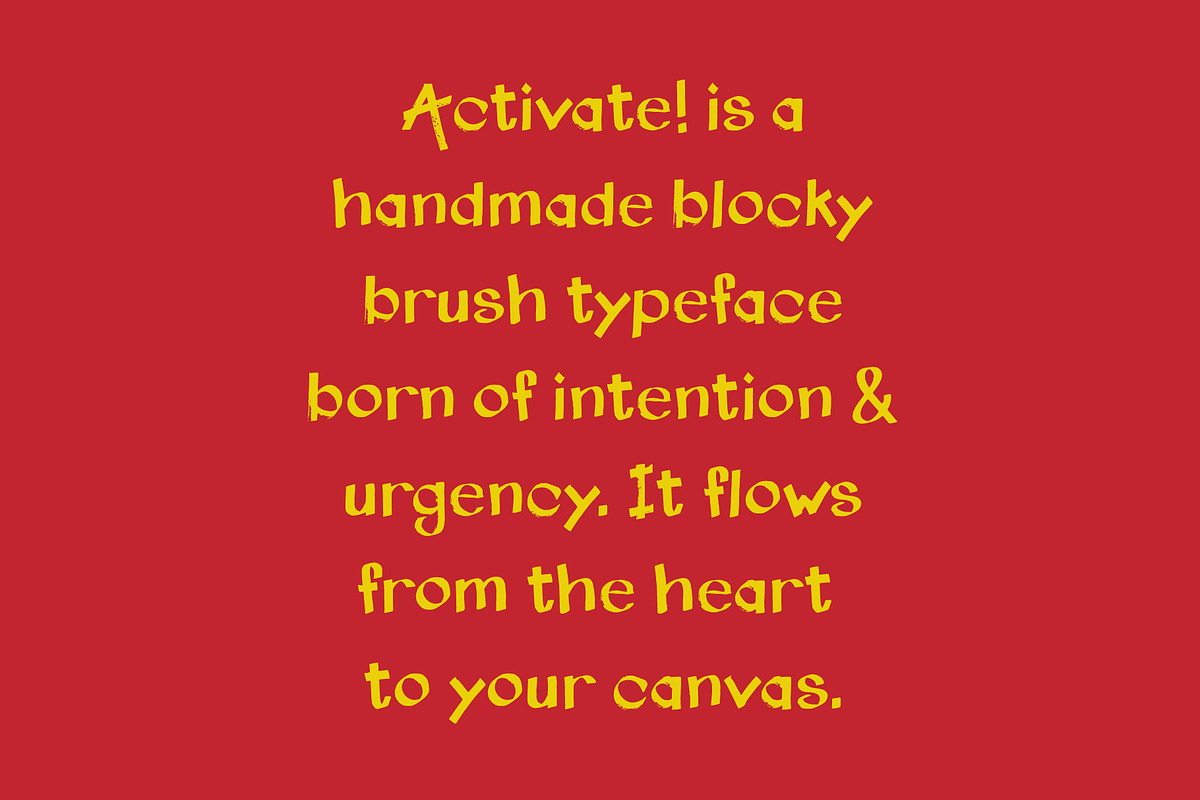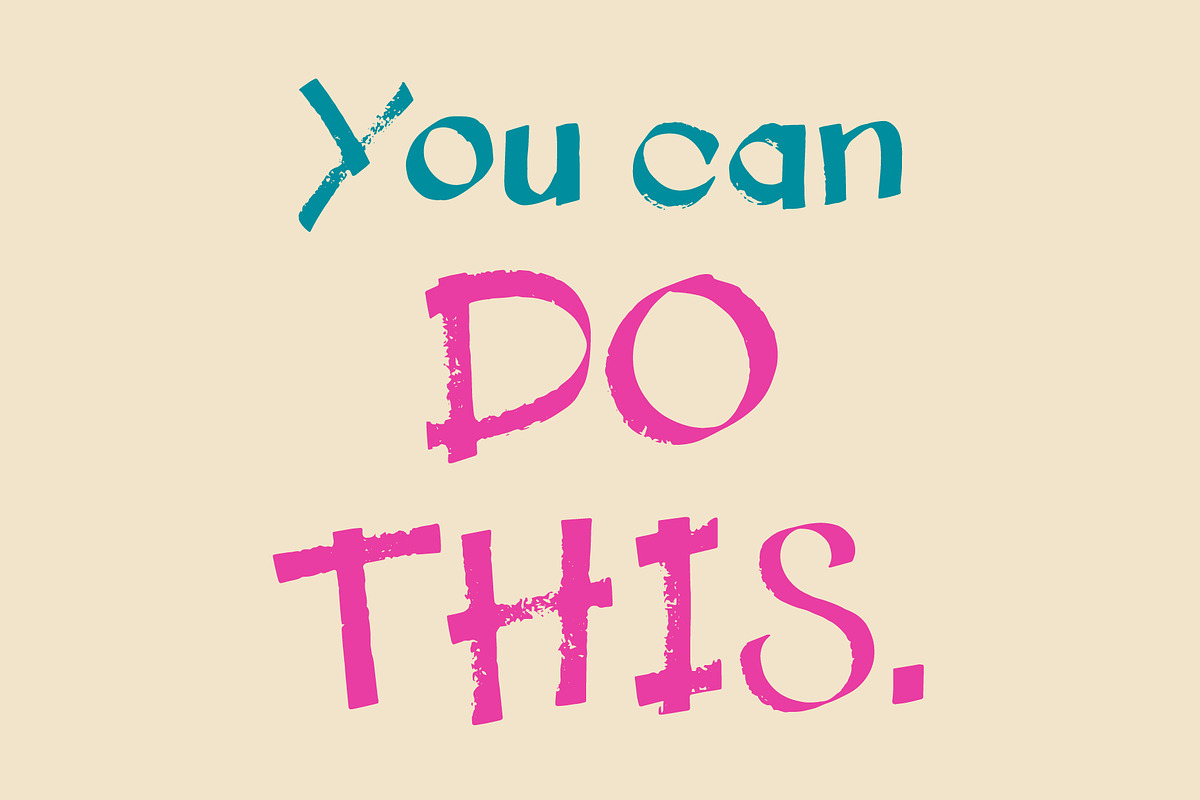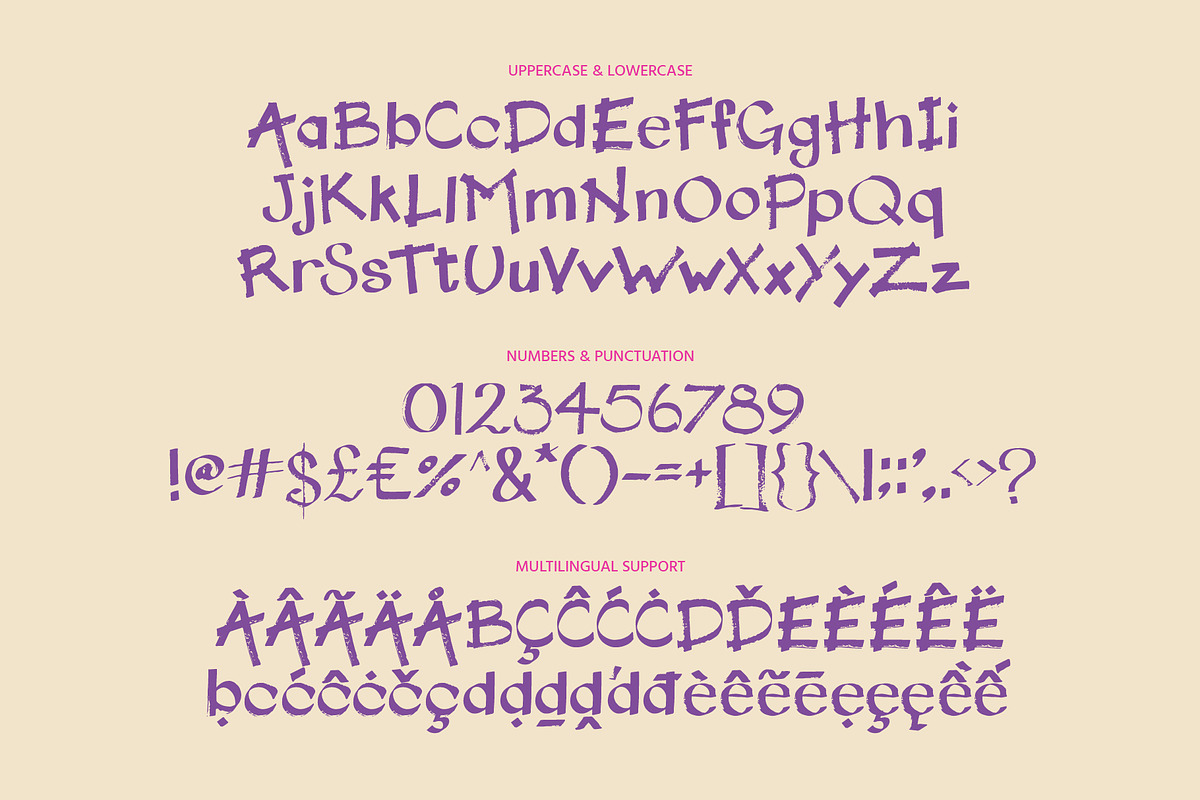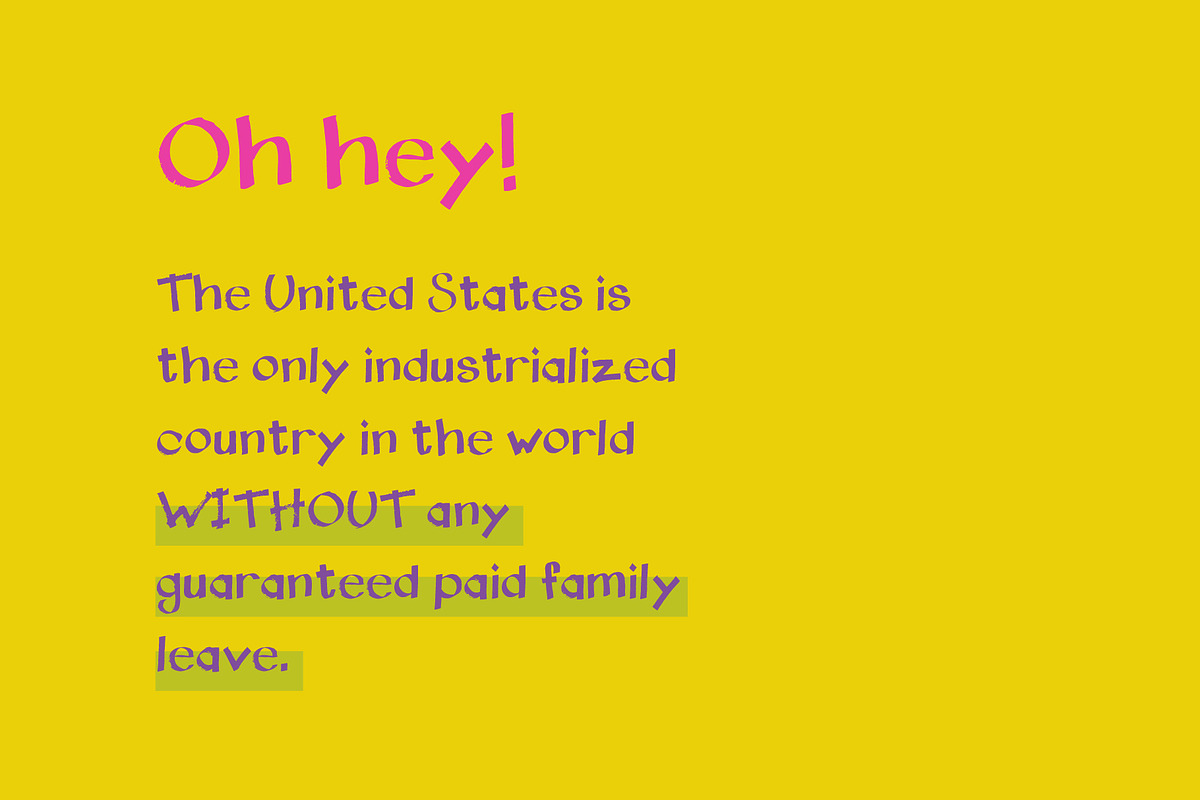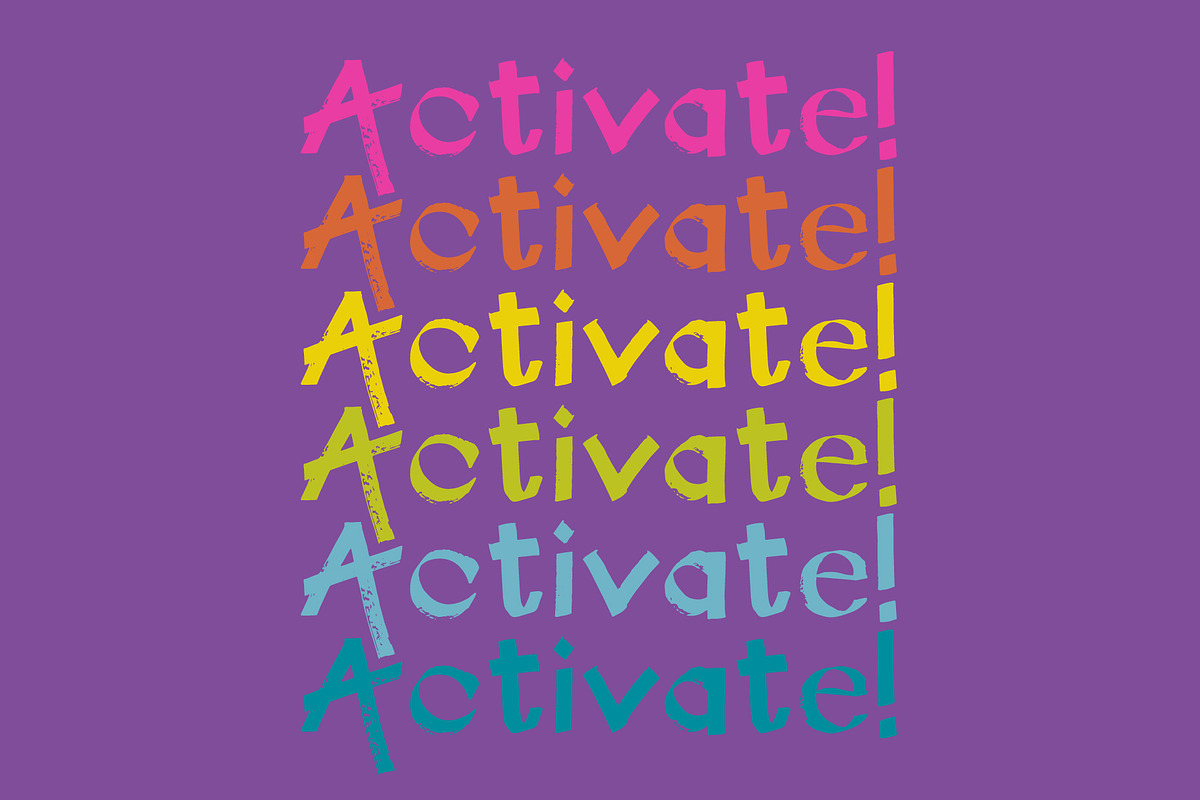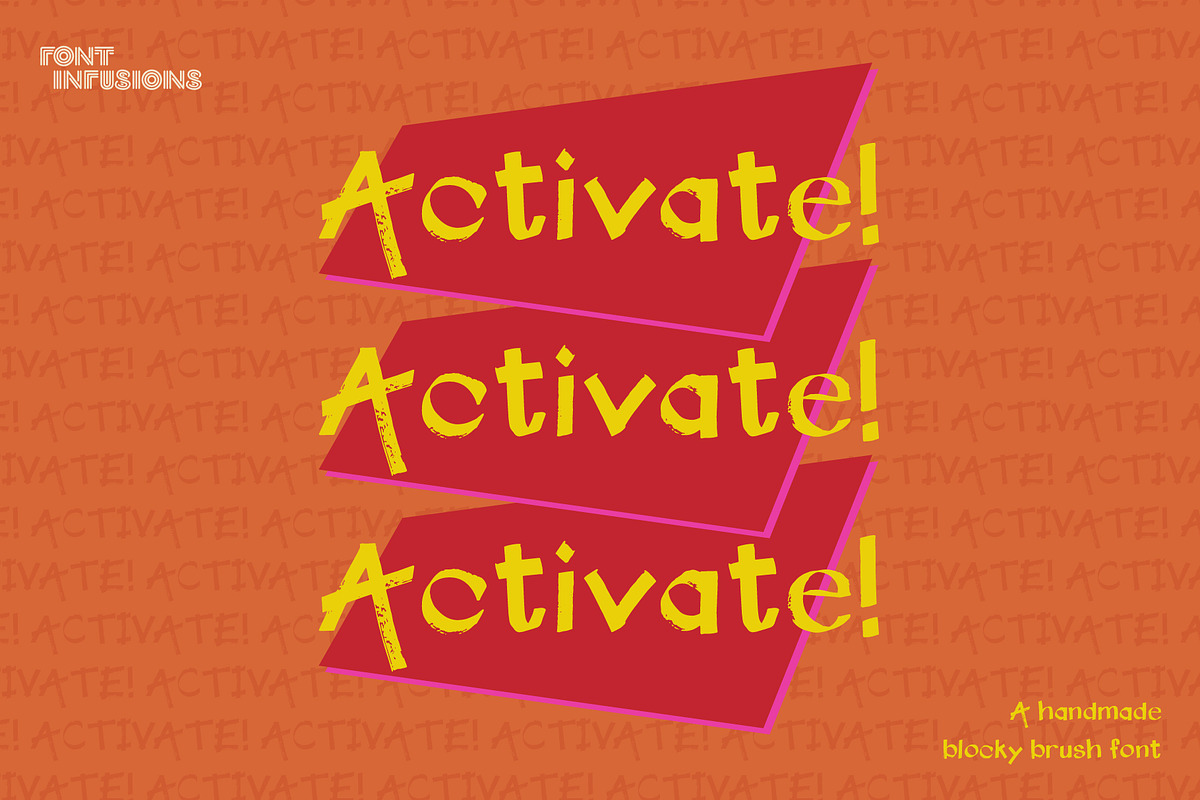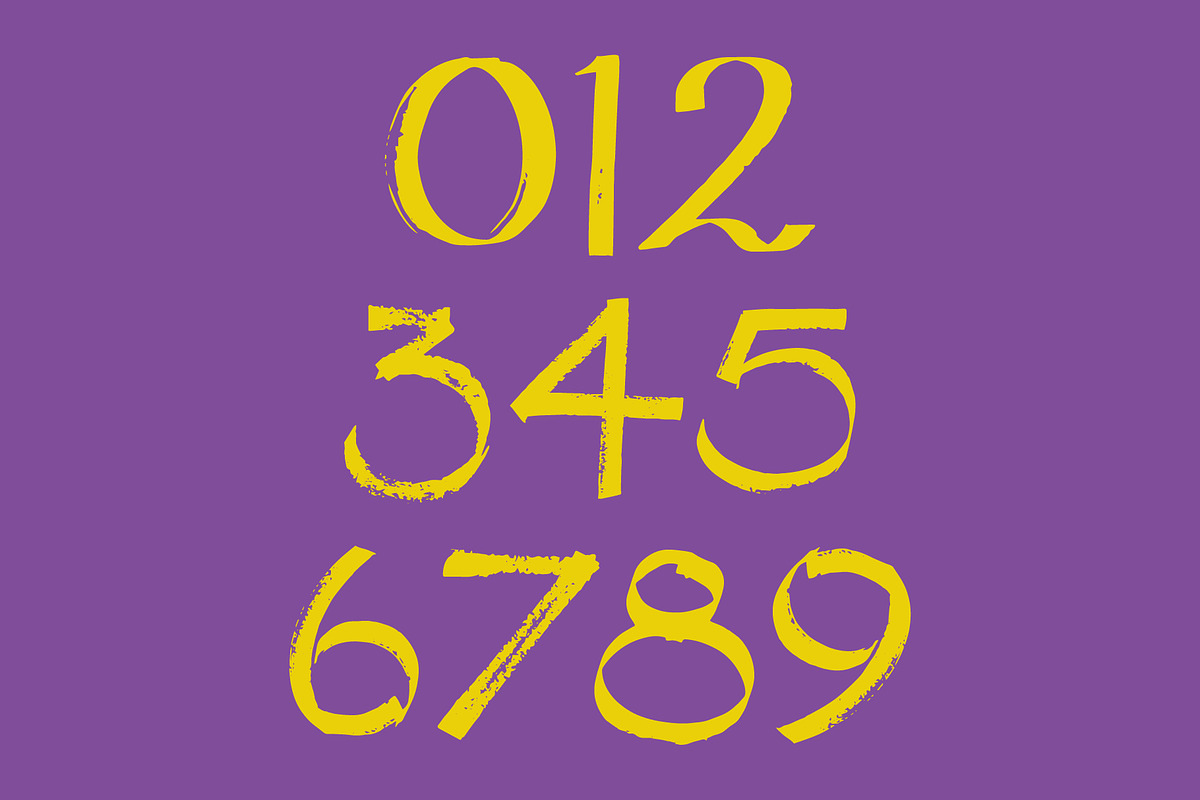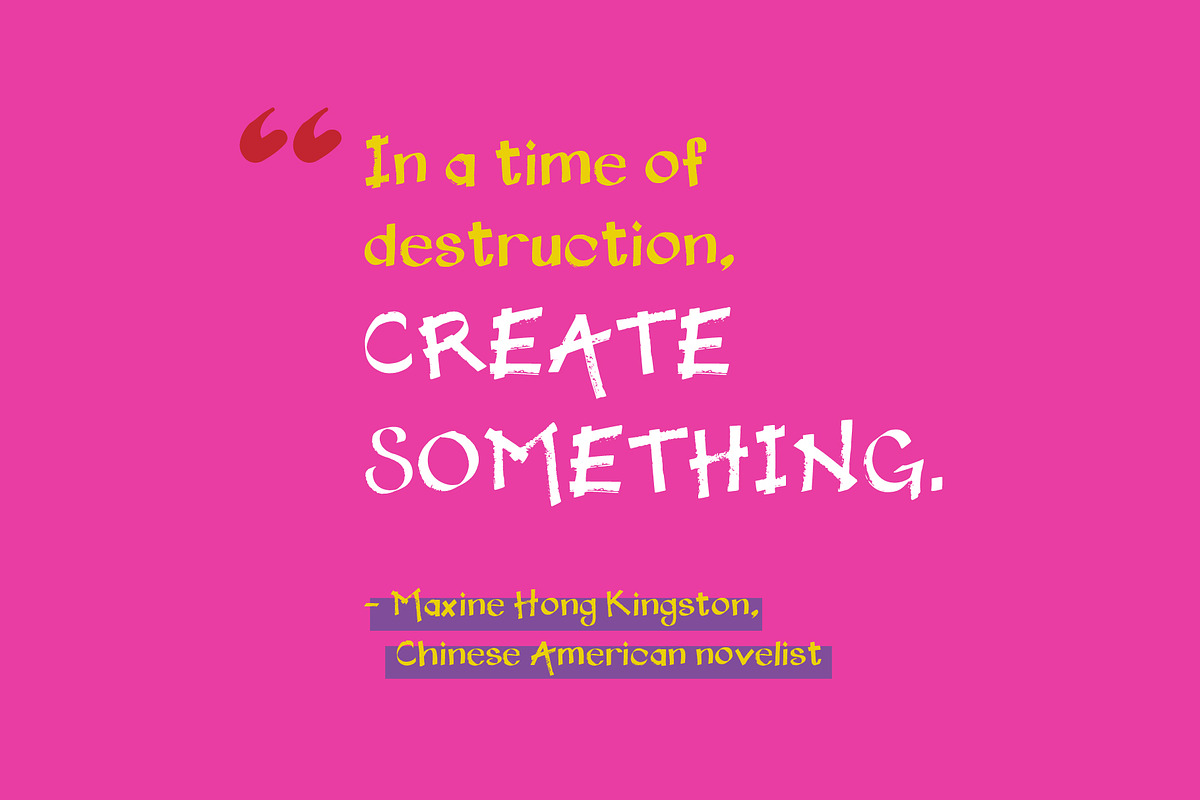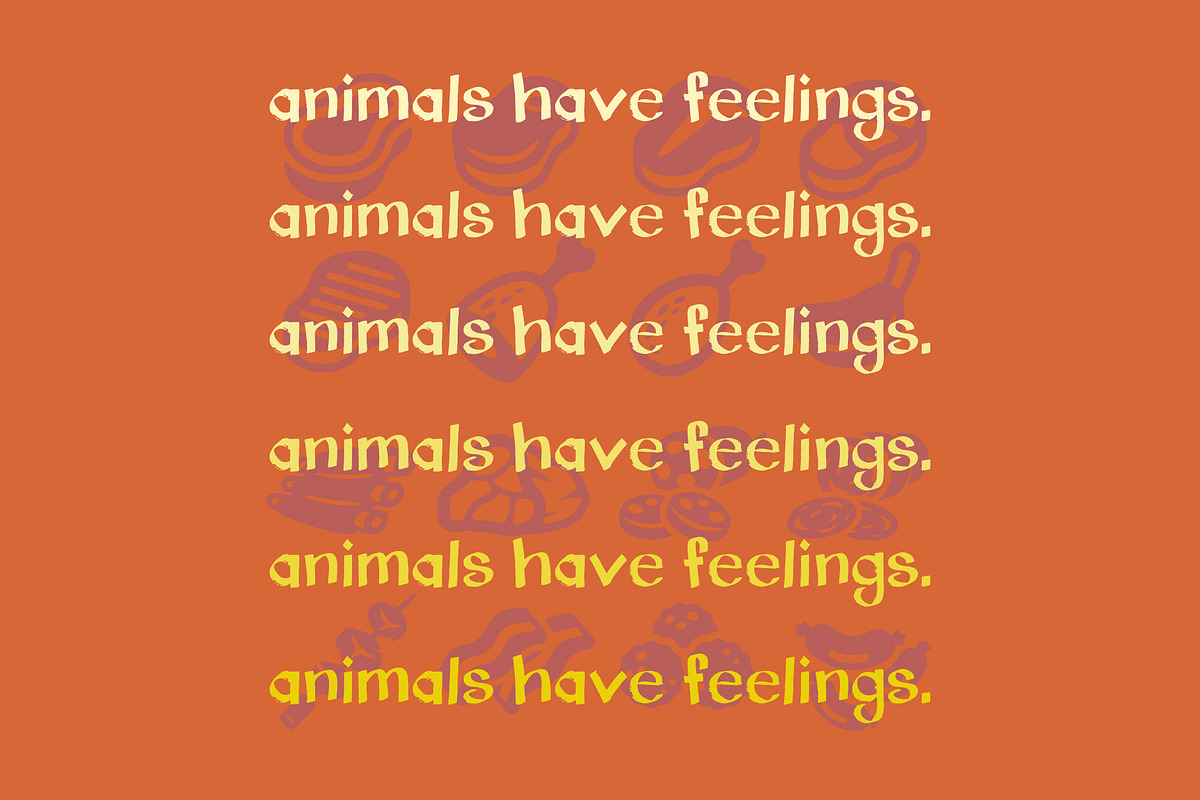
Activate! - blocky handwritten font
This typeface is perfect for adding texture with sass if you have something to say.
The coarse edges really shine when the letters fill the page, so don’t be afraid to amp up that font size. Although this is a low-contrast display font, the subtly thinner bowls can allow for longer formats up to a paragraph or two.
Type Specimens Each specimen has been designed by hand with a chisel tip marker, and each stroke was made with pressurized purpose.
Typography Talk The chisel tip pen was held with the tip at a 180-degree angle and wrist in a locked position on the downstrokes to create thick stems. The chisel tip was then rotated to 90-degrees to create thick crossbars. (“I like my crossbars THICC.” The only exception to this approach is the U.S. dollar glyph, which does have a thinner stem.) Together, this calligraphic approach creates a sort of reverse stroke, resulting in a consistently thick weight and low contrast throughout the typeface, save for the subtle thinner strokes at the shoulders of the lowercase h, m, and n or the bowls of the uppercase U and uppercase B.
The misalignment of crossbars and cross strokes with their stems creates a stylishly haphazard and handmade touch.